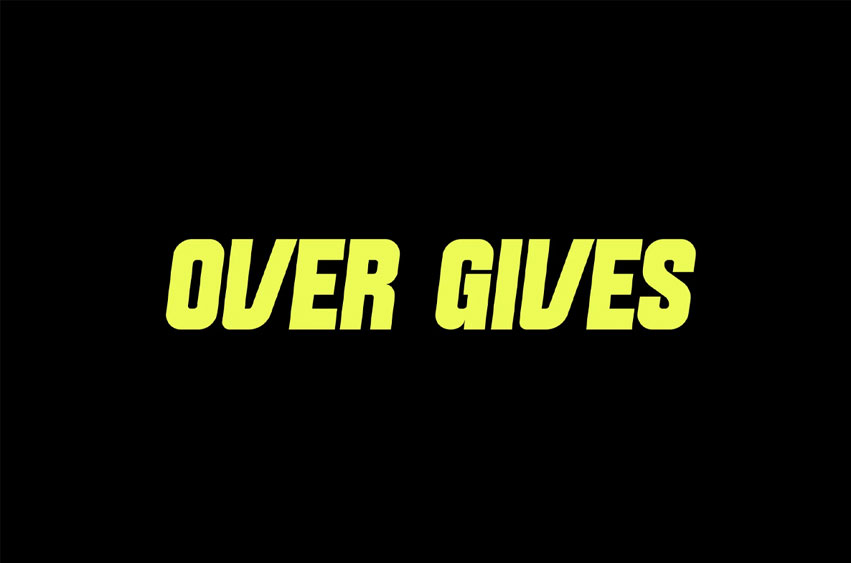
Over Gives Font
Over Gives Font Modern Font is a bold and authentic display font. The font is suitable for any branding project like logo, esport, and many more.